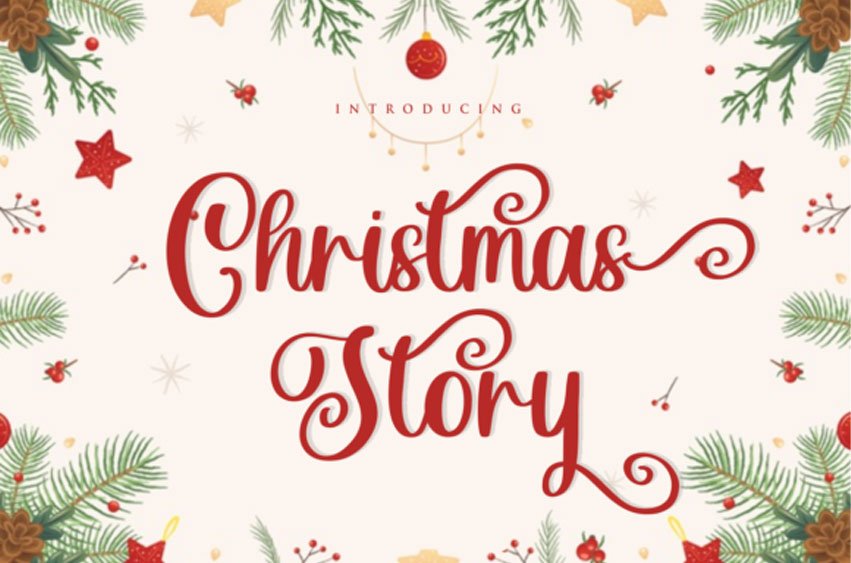
Christmas Story Font is a friendly, fresh, rich, and elegant handwritten font. It is ideal for holiday-themed greeting cards and for any crafting project that requires a romantic touch.